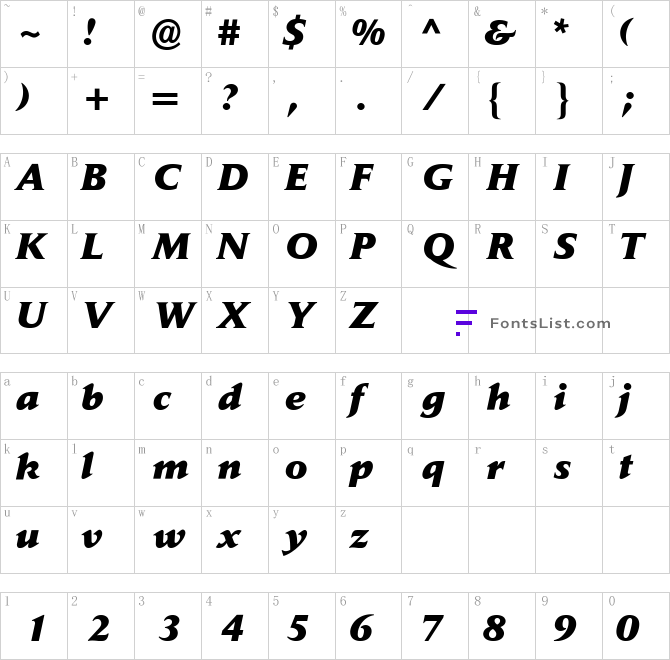
- Font Name:Daily News BQ
- Subfamily:ItalicBold
- Full Name:Daily News Extra Bold Italic
- PostScript:DailyNewsBQ-ExtraBoldItalic
Daily-News-Extra-Bold-Italic.ttf is a very beautiful artistic font, Daily-News-Extra-Bold-Italic.ttf is widely used in the design and printing of various books and pictures,Daily-News-Extra-Bold-Italic.ttf has a strong visual impact,Daily-News-Extra-Bold-Italic.ttf is a commonly used font in newspapers, magazines and books, and is used in posters, e-commerce Poster design, store design, logo design, font design and other fields.Daily-News-Extra-Bold-Italic.